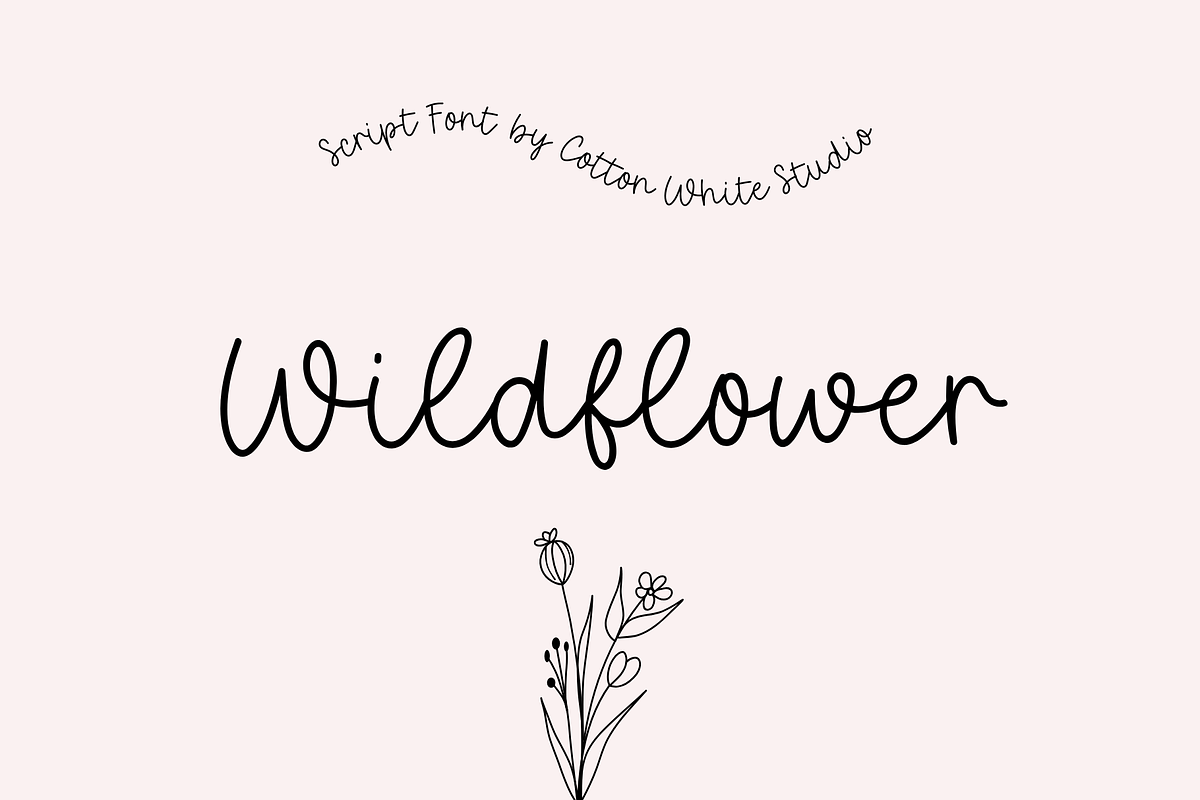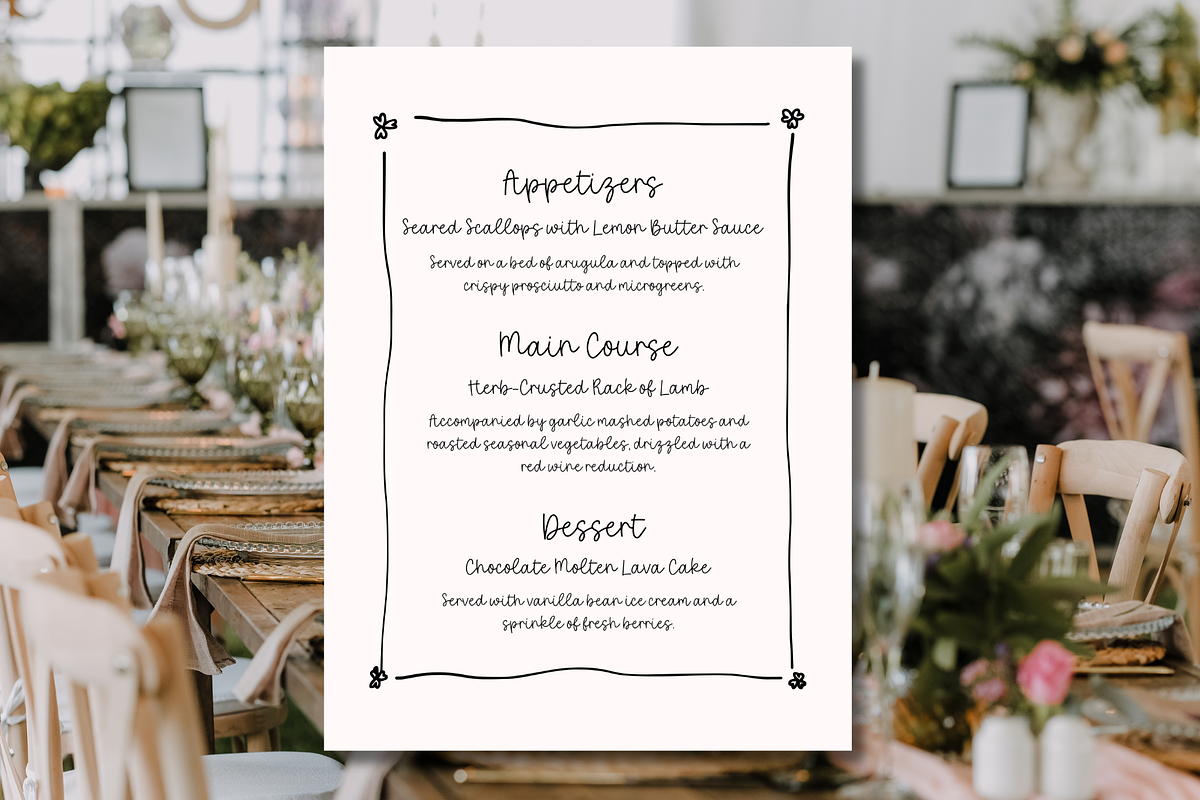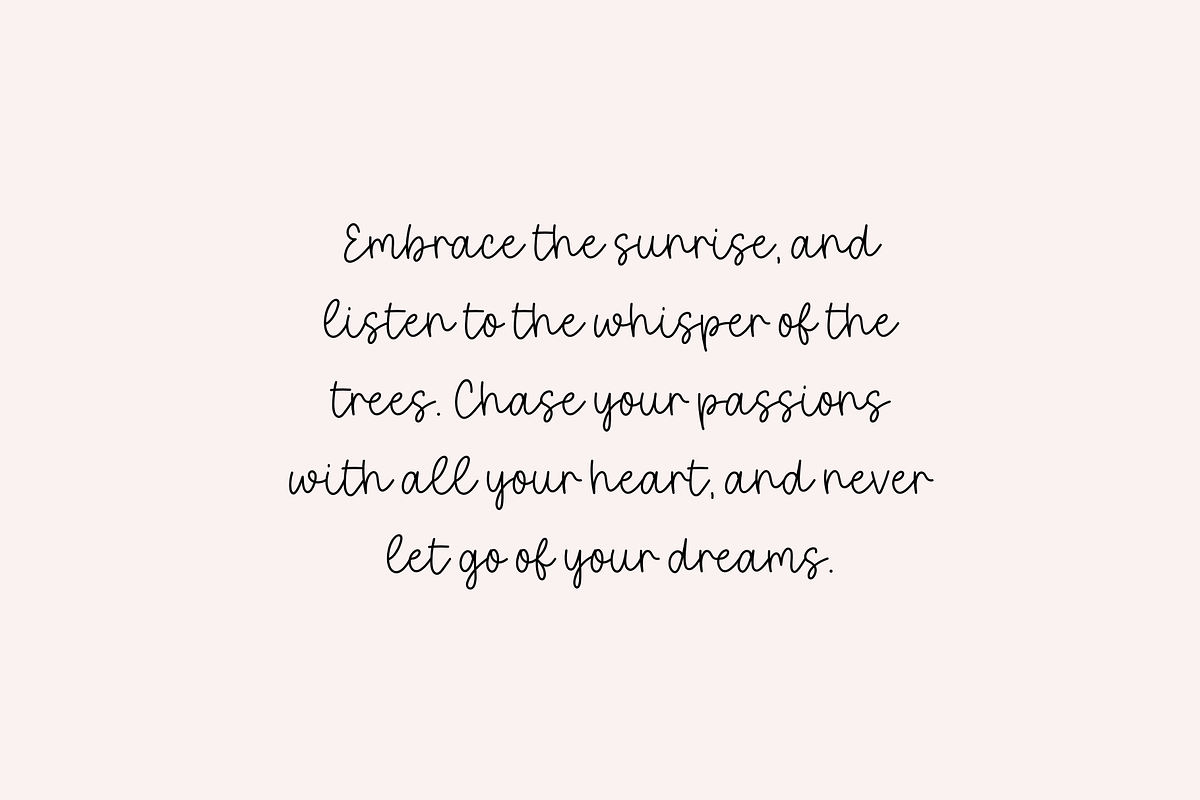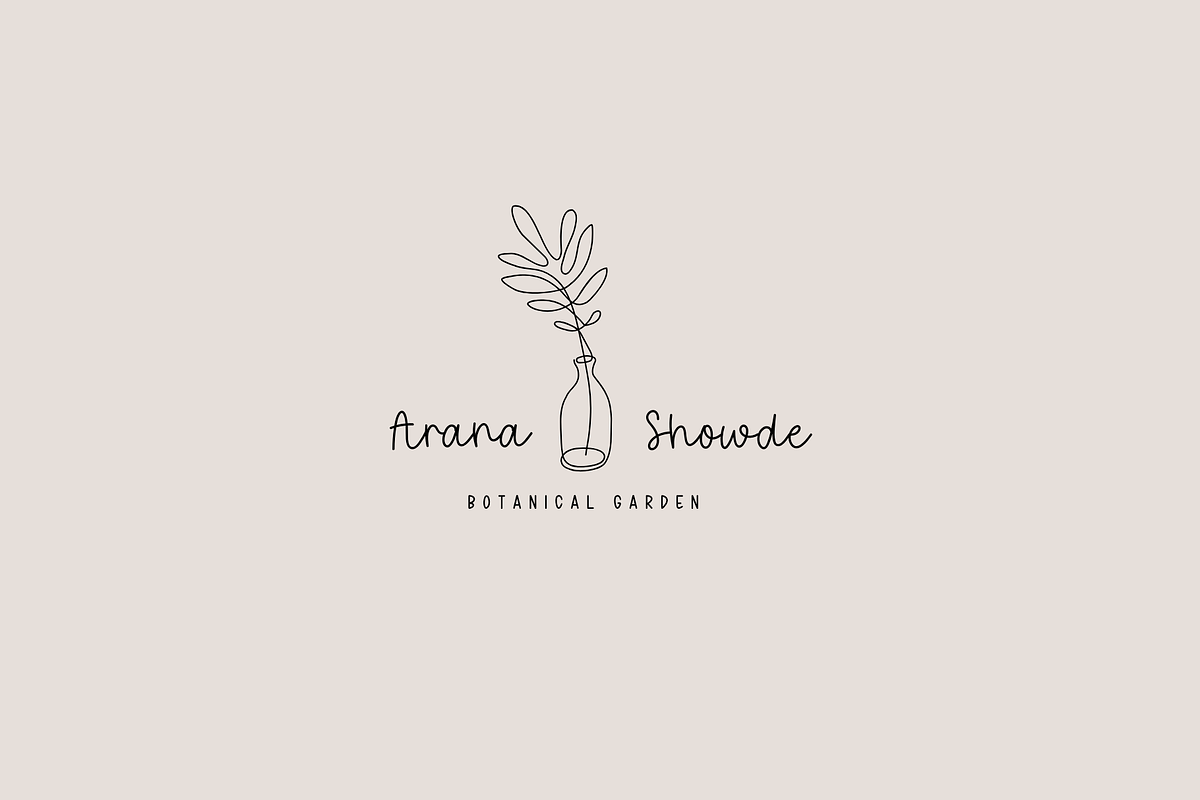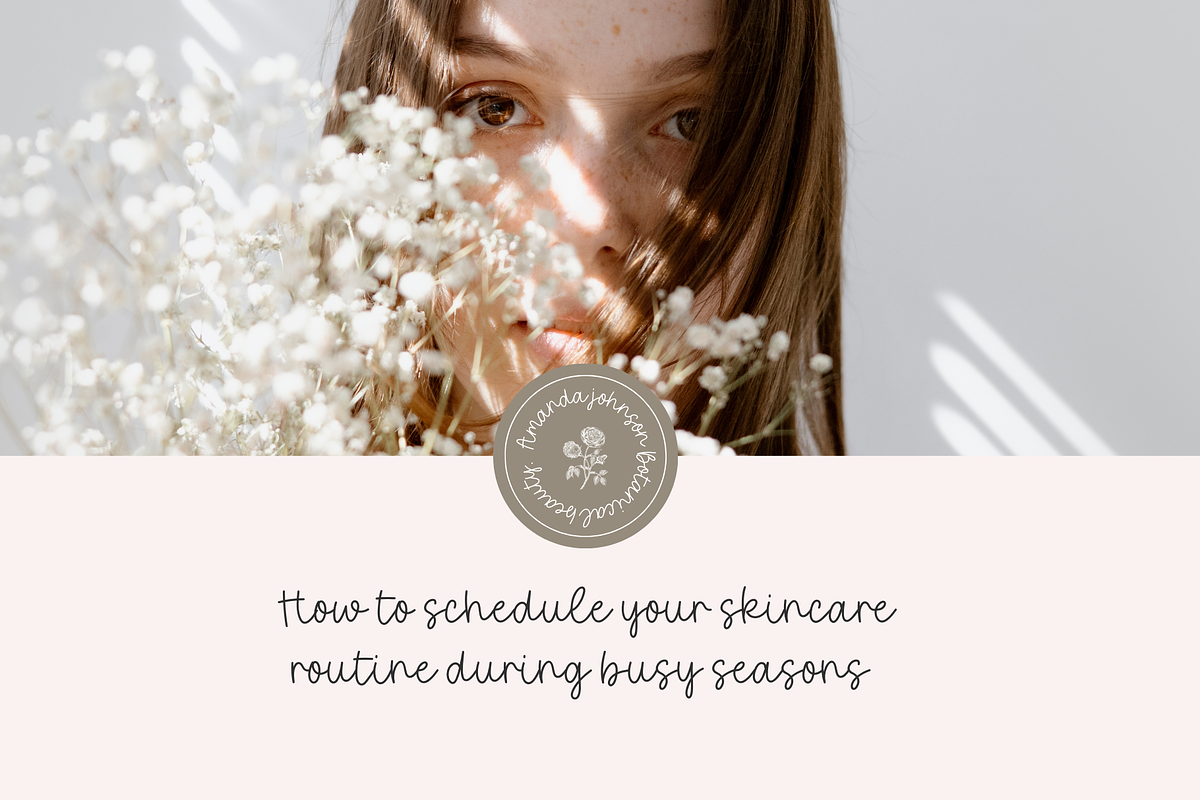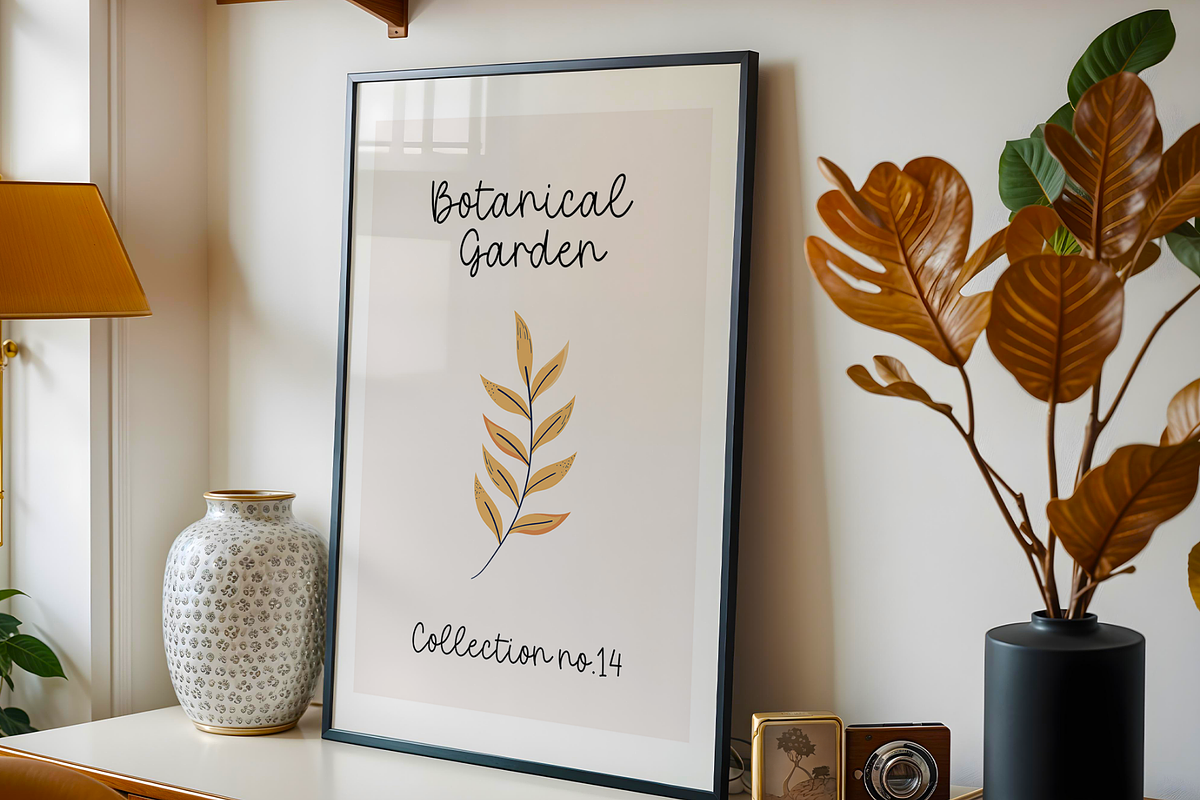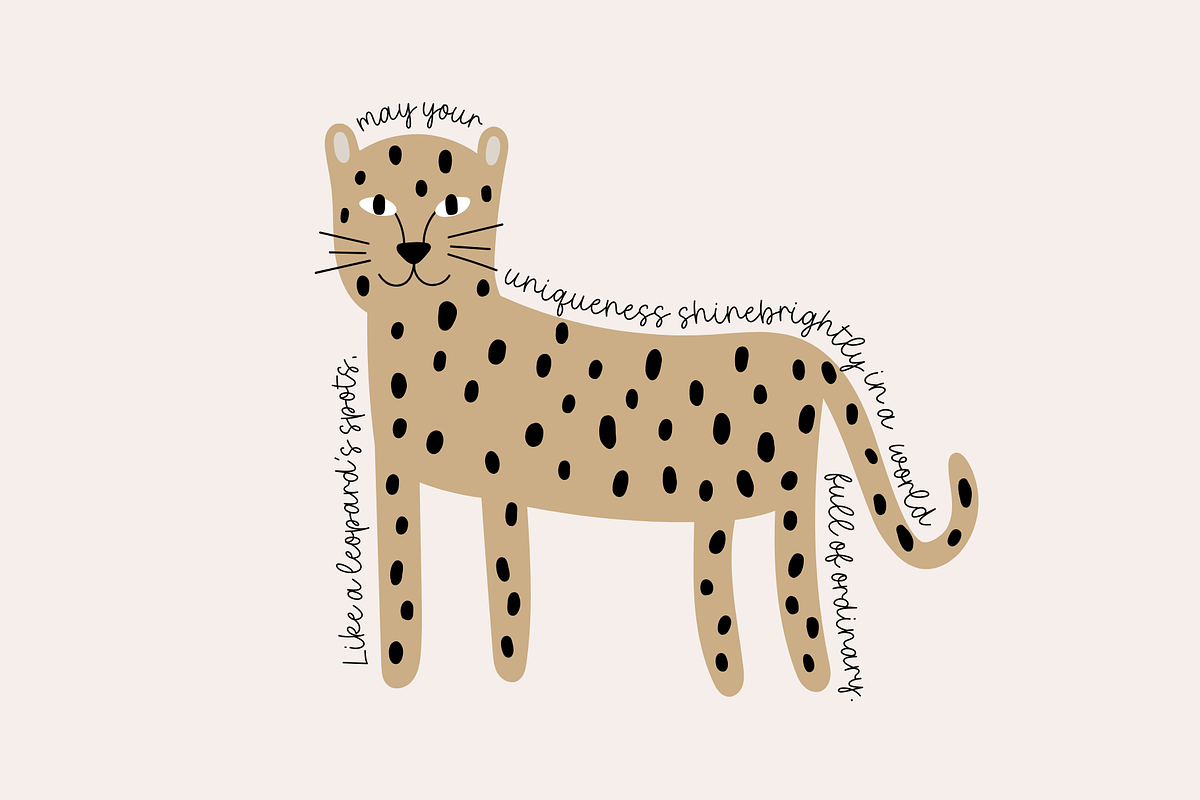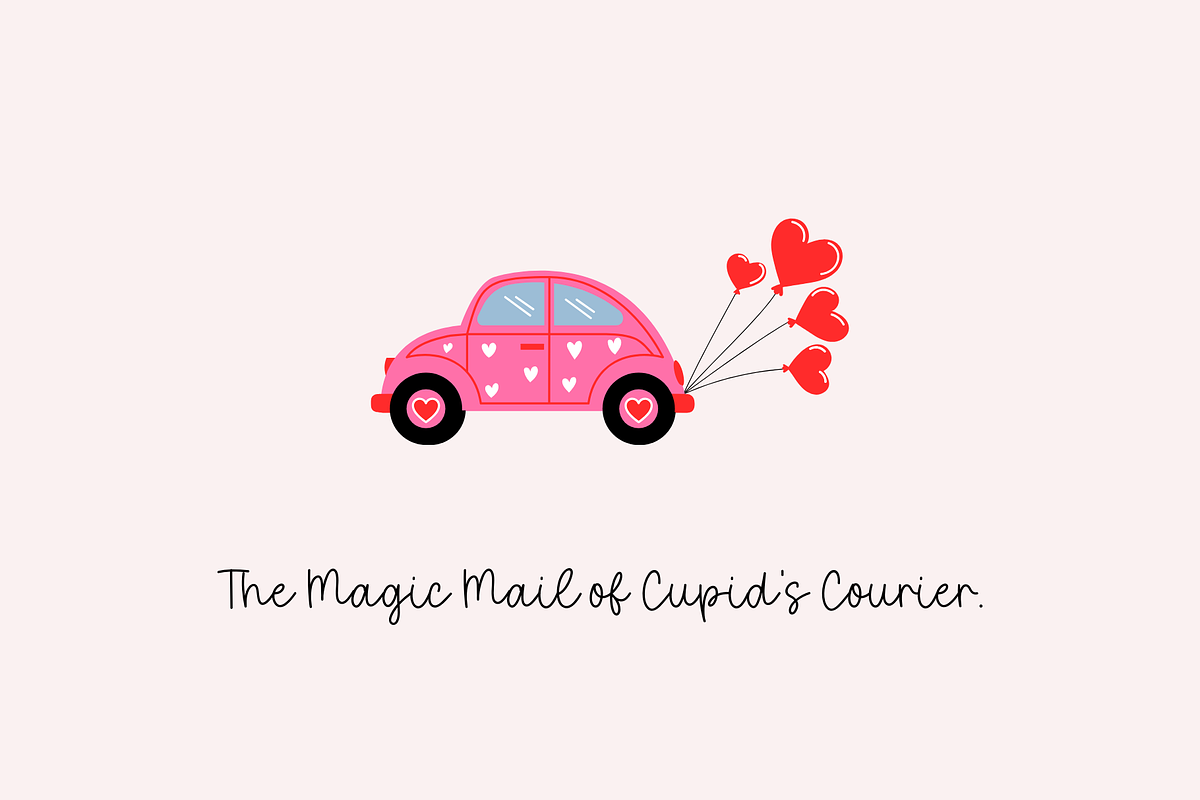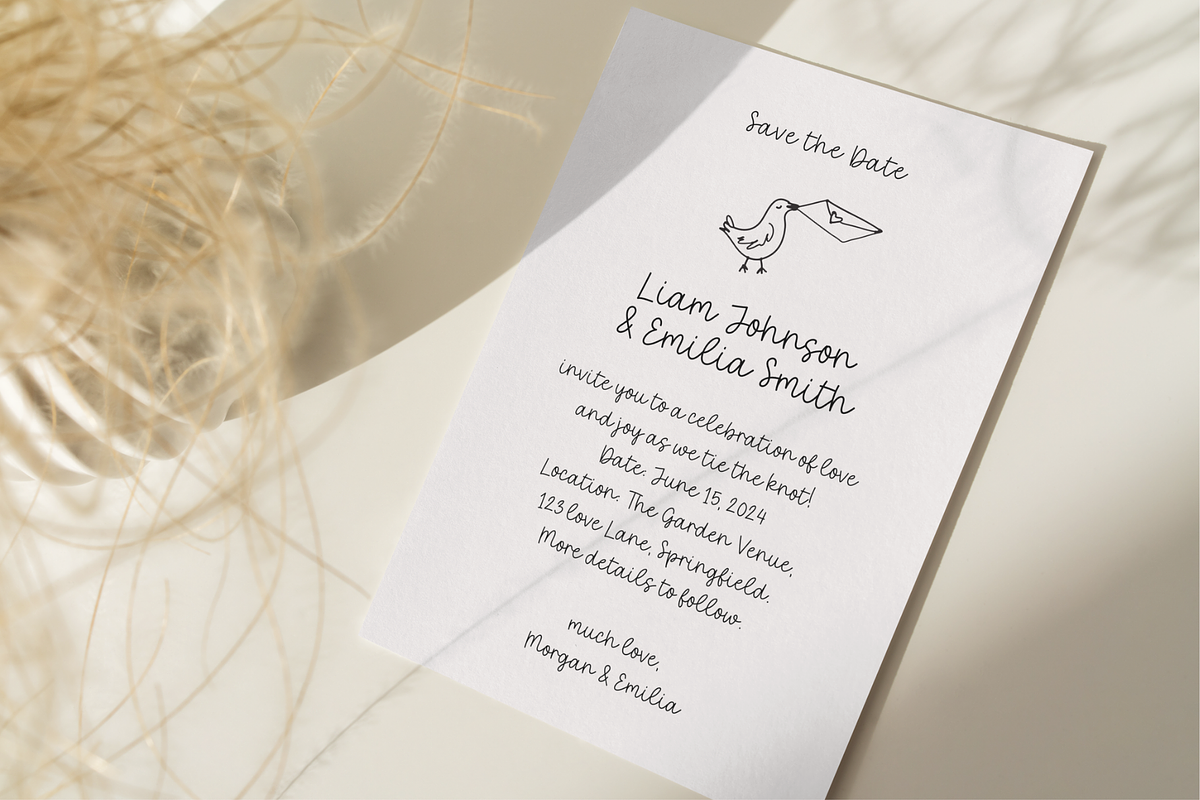
Wildflower Script Font
Add a beautiful, hand crafted look to your work with the fabulously Wildflower scripted font! A hand drawn elegant font that will add a uniq touch to your work. Perfect for branding, invitations, blogs, planners and much more.